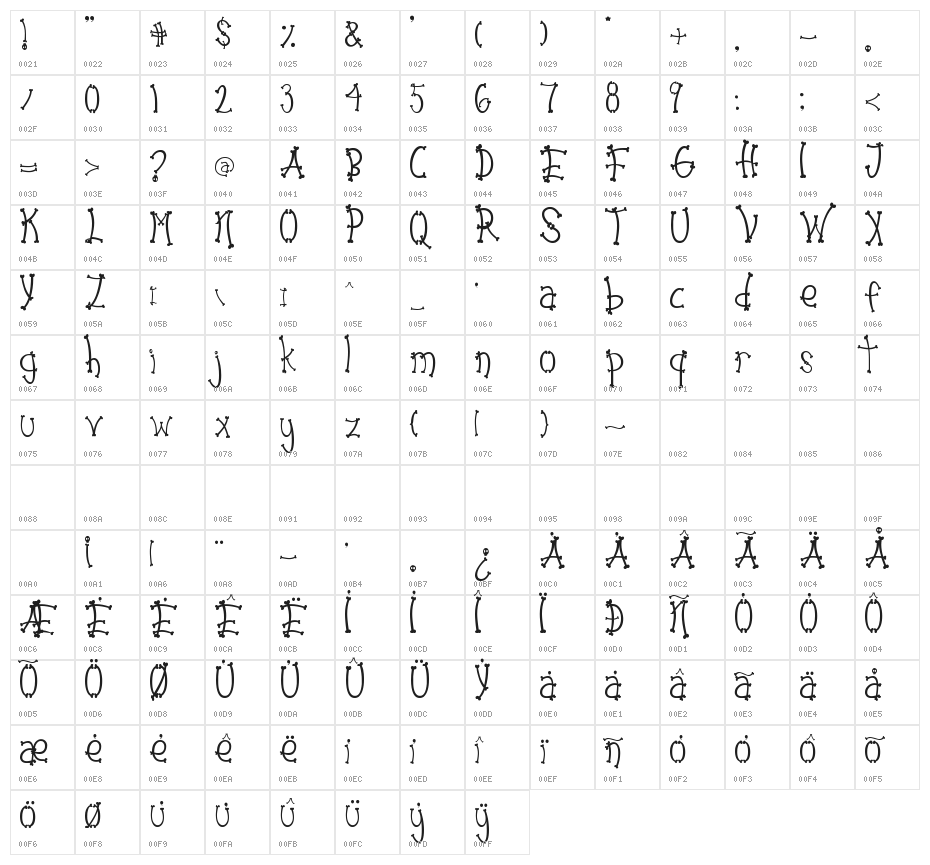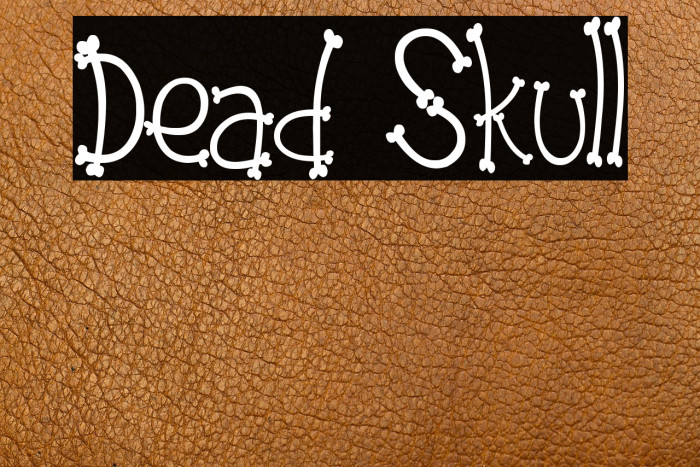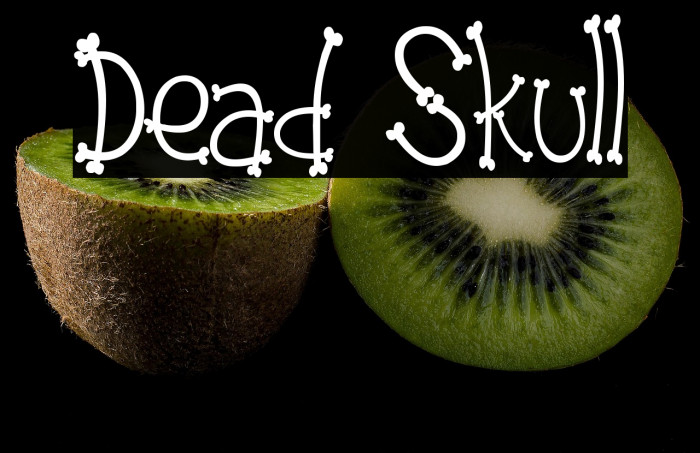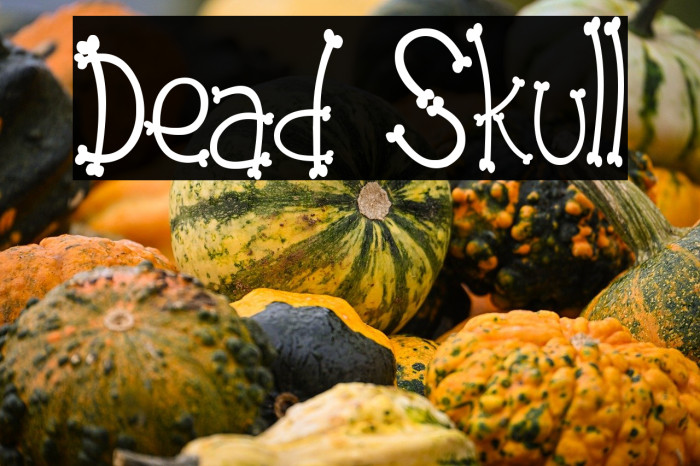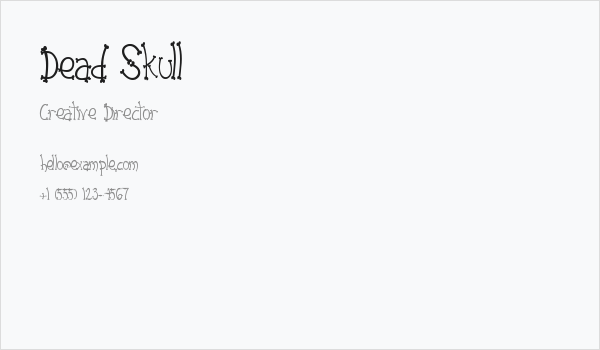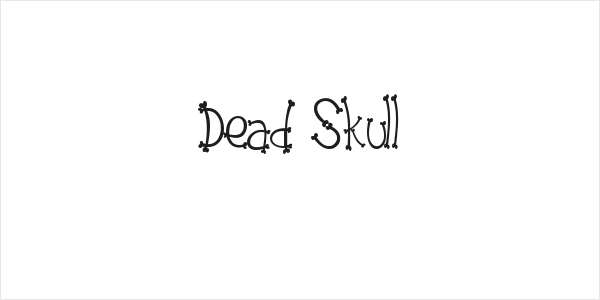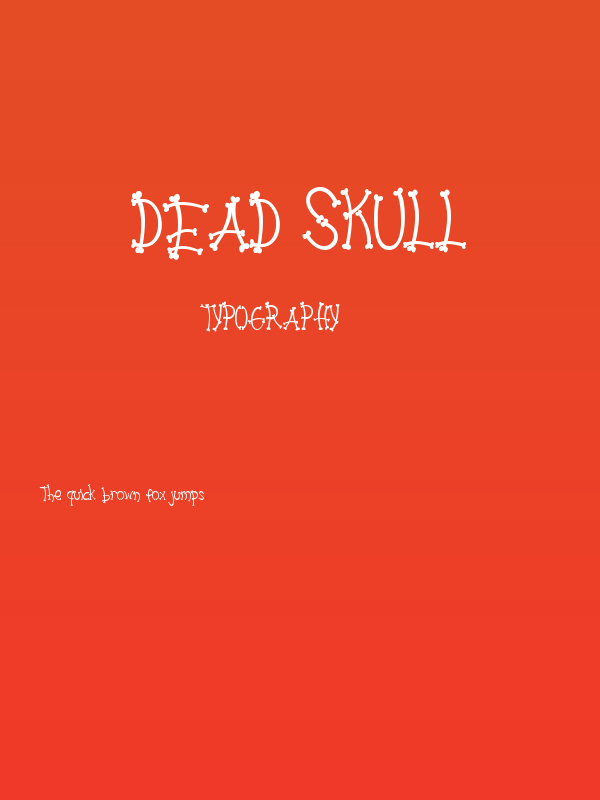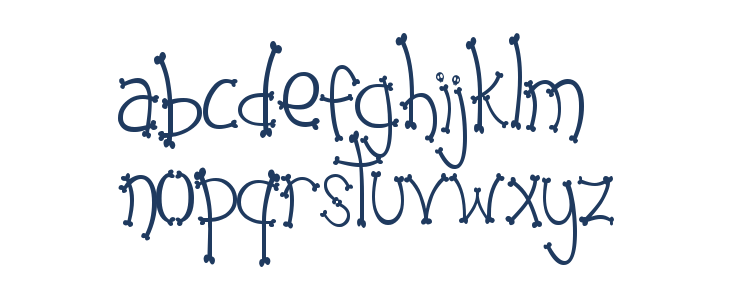
Dead Skull Font
Dead Skull Description
This font features a playful and whimsical design, characterized by its bone-like structure and decorative elements that resemble skulls at the joints. The letters are irregular and have a hand-drawn appearance, giving them a unique and quirky style. The uppercase and lowercase letters maintain a consistent theme, with exaggerated curves and loops that add to the font's distinctive personality. Numbers and special characters follow the same skeletal motif, making the font cohesive across all characters. This font is ideal for projects that require a fun and spooky aesthetic, such as Halloween-themed designs or playful branding.
| Use Case | Headlines, Logos, Themed Invitations |
| Proposed Projects | Perfect for Halloween designs, children's book covers, playful branding, and themed party invitations. |